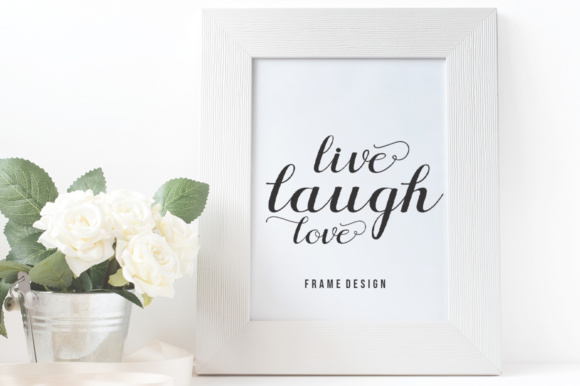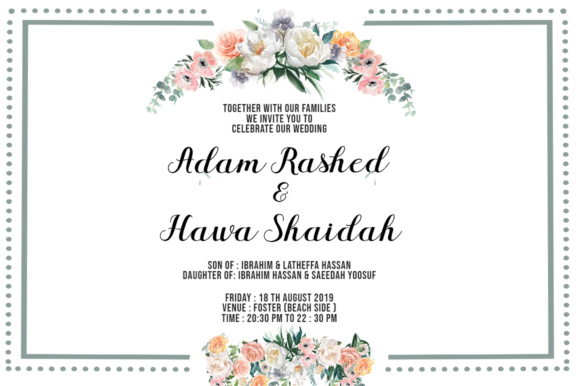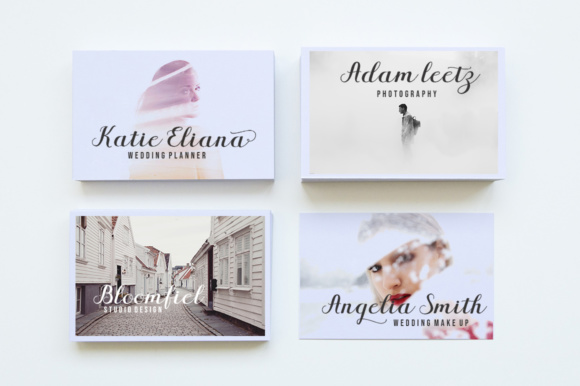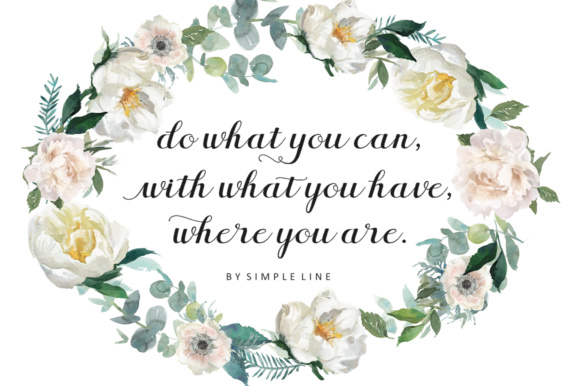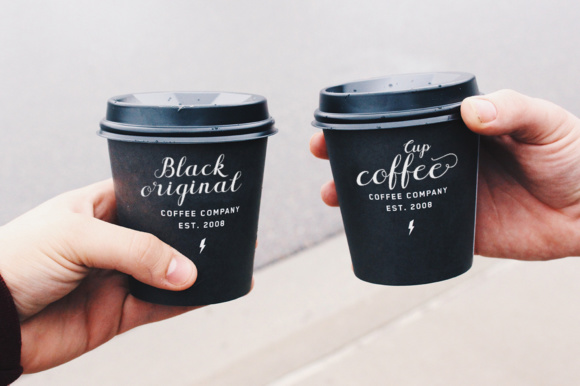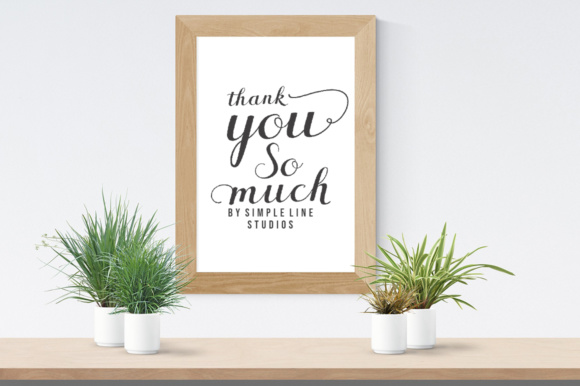
Introduction to Qailitha Script Font
As designers, we’ve all been there – staring at a blank canvas, waiting for the perfect spark to ignite our creative project. For me, it was the moment I stumbled upon the Qailitha Script Font, and everything changed. Its organic and energetic style was like a breath of fresh air, and I knew I had to dive deeper.
The Qailitha Script Font is more than just a font – it’s a design resource that can elevate your work to new heights. With its dynamic brush style and high-quality design, it’s perfect for logos, posters, invitations, and so much more. Whether you’re working on a personal project or a client-based design, this font is sure to bring a touch of magic to your work.
Key Features of Qailitha Script Font
- High-quality script font suitable for creative projects and design resources, ideal for adding a touch of elegance to your work.
- Qailitha Script Font is available in a single size, with a resolution of 300 DPI, making it perfect for print and digital use.
- Unique characteristics include flowing connections and subtle flair, adding a touch of sophistication to any design or creative project.
Honest Review: Qailitha Script Font
What works well with Qailitha Script Font is its elegant and refined look, perfect for creative projects that require a touch of sophistication. The font is highly versatile and can be used for a wide range of applications, from wedding invitations to branding materials.
- ✨ The font is well-crafted, with smooth lines and precise letterforms.
- ✨ It’s highly customizable, allowing you to adjust the size, color, and spacing to suit your needs.
However, I did encounter a few limitations while working with Qailitha Script Font. One of the main issues is that the font does not support transparent backgrounds, which can be a problem if you’re working on a design that requires a lot of transparency.
Overall, I’m impressed with the Qailitha Script Font, and I would definitely recommend it to designers looking for a high-quality, free design resource. While it may have some limitations, the font’s elegant look and versatility make it an excellent choice for creative projects.
Tips for Getting the Most Out of Qailitha Script Font
To get the most out of the Qailitha Script Font, use it on a transparent background to create a seamless design. This font is perfect for creative projects that require a high-quality, elegant script.
The Qailitha Script Font is commonly used for:
- Business cards and logos
- Quote graphics and social media posts
Alternatives to Qailitha Script Font
Great Vibes Font is a high-quality, elegant script font ideal for creative projects that require a sophisticated and refined look. It’s perfect for wedding invitations, luxury branding, and other high-end design projects. With its smooth, flowing lines and transparent background, Great Vibes Font is a great alternative to Qailitha Script Font for designers who want a more polished and refined look.
Great Vibes Font compares to Qailitha Script Font in terms of its elegant and refined aesthetic, but it has a more subtle and understated feel. It’s also more versatile and can be used in a wider range of design projects.